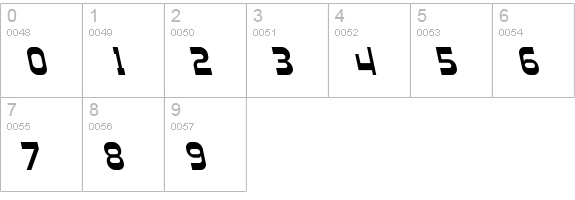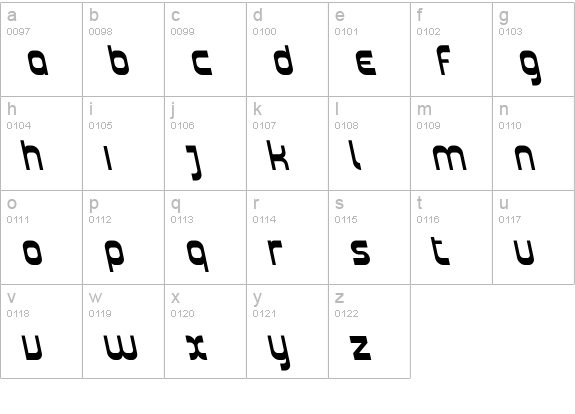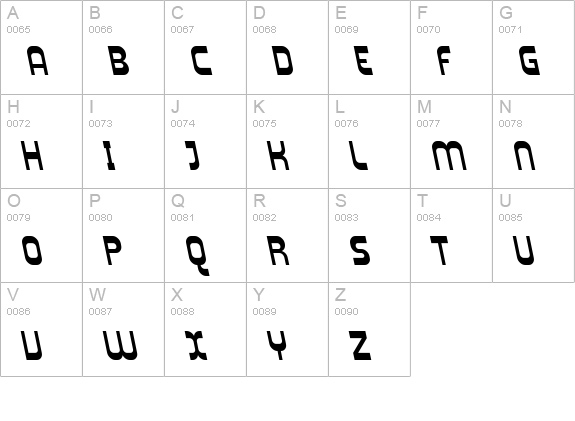
Plasmatica Rev Italic is a distinctive, italic variant in the Plasmatica typeface family \xE2\x80\x94 well suited to design and typography projects.
Introducing Plasmatica Rev Italic, a font that embodies elegance, sophistication, and a touch of modernity. With its sleek and slanted design, Plasmatica Rev Italic captivates the eye and adds a unique flair to any project it graces. This font boasts a harmonious balance between soft curves and sharp edges, creating a visually pleasing blend that is both captivating and versatile. Whether used for headlines, logos, or body text, Plasmatica Rev Italic effortlessly conveys a sense of professionalism and refinement. Its italicized form adds a dynamic and energetic touch, making it the perfect choice for projects that require a dash of creativity and movement. With each letter and character meticulously crafted, Plasmatica Rev Italic ensures legibility and clarity, even at smaller sizes. One of the most remarkable aspects of Plasmatica Rev Italic is that it is available for free download at FontsMarket.com. This means that you can easily access this exquisite font and incorporate it into your designs without any financial burden. Whether you are a professional designer or a passionate hobbyist, Plasmatica Rev Italic offers you a world of possibilities, all at no cost. So why wait? Enhance your visual creations with the captivating elegance of Plasmatica Rev Italic. Download it for free at FontsMarket.com and let your designs truly shine with this stunning font.